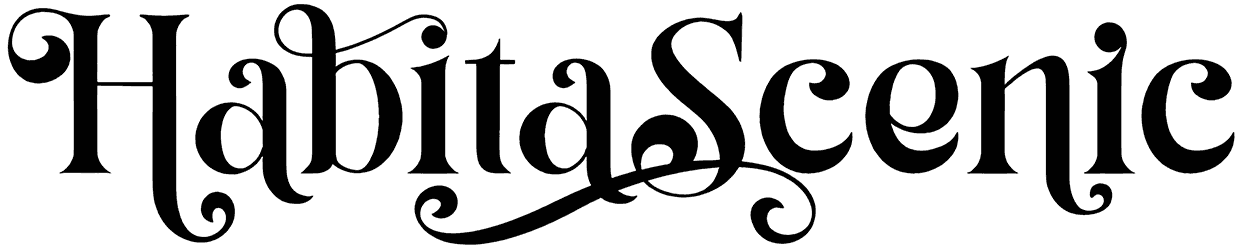
Habita Scenic Font
Using a retro font like Habita Scenic will give an elegant, classic, and warm vibe to your words all at the same time. This classic font is going to amaze your followers with its beautiful, unique letters. Flourish a shop sign or any other designs that you are working on with Habita Scenic font, even without numbers, and enjoy the final show